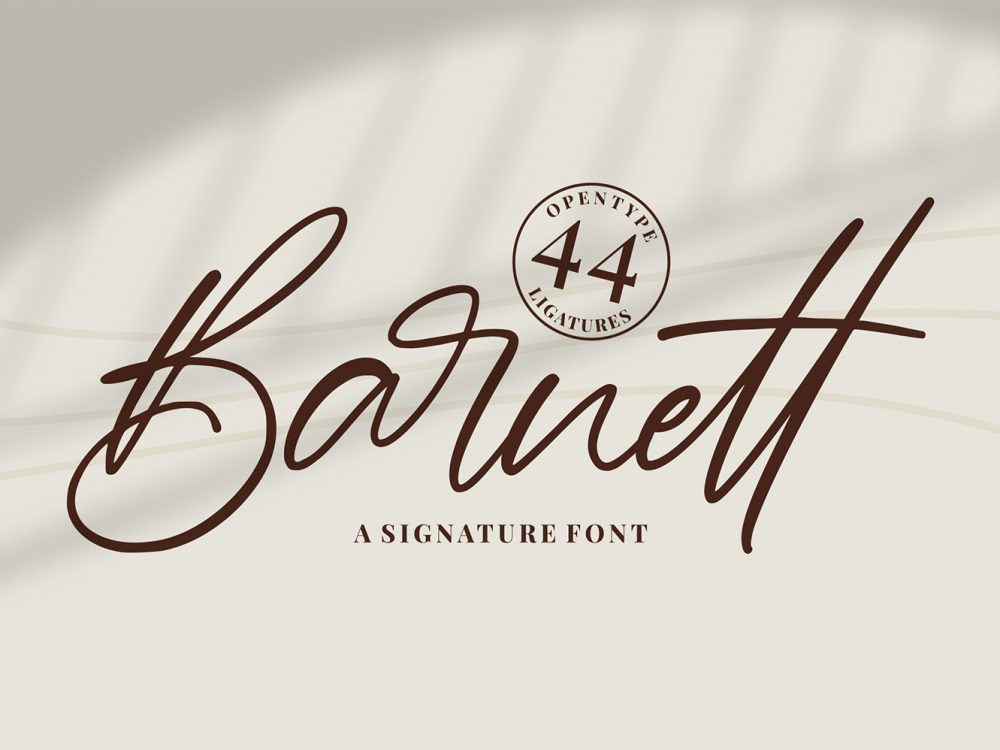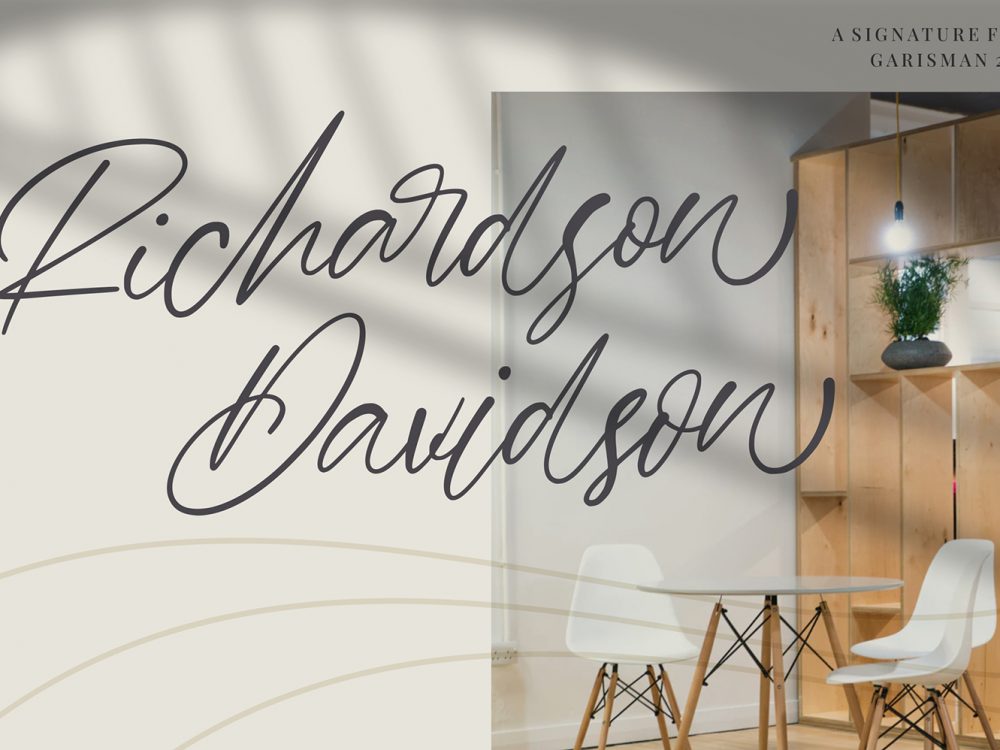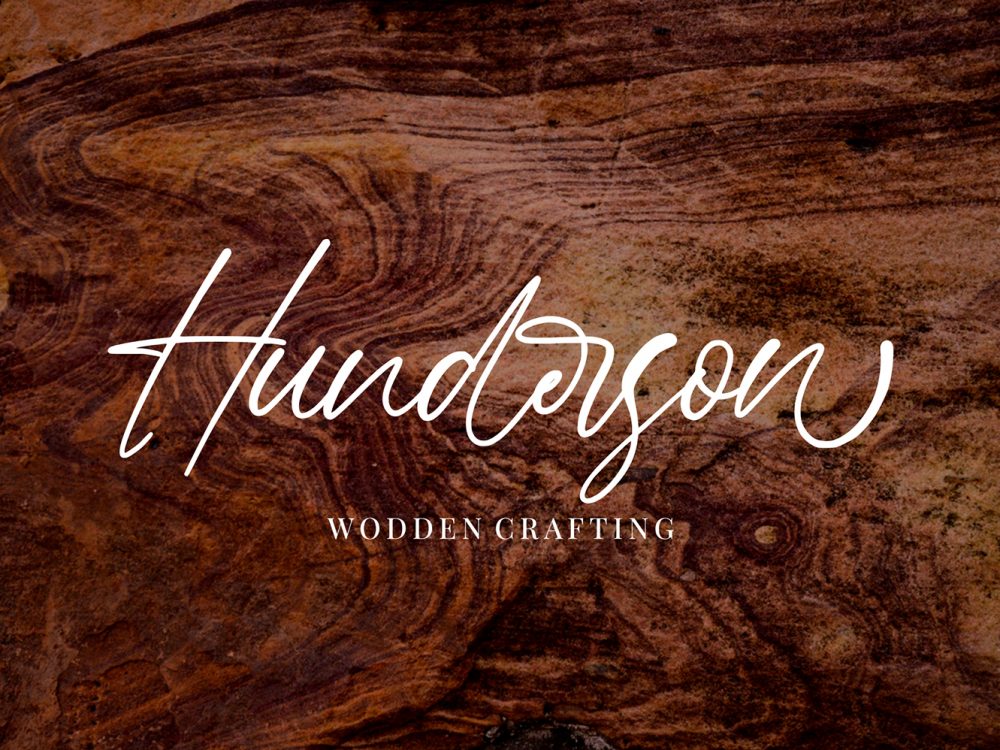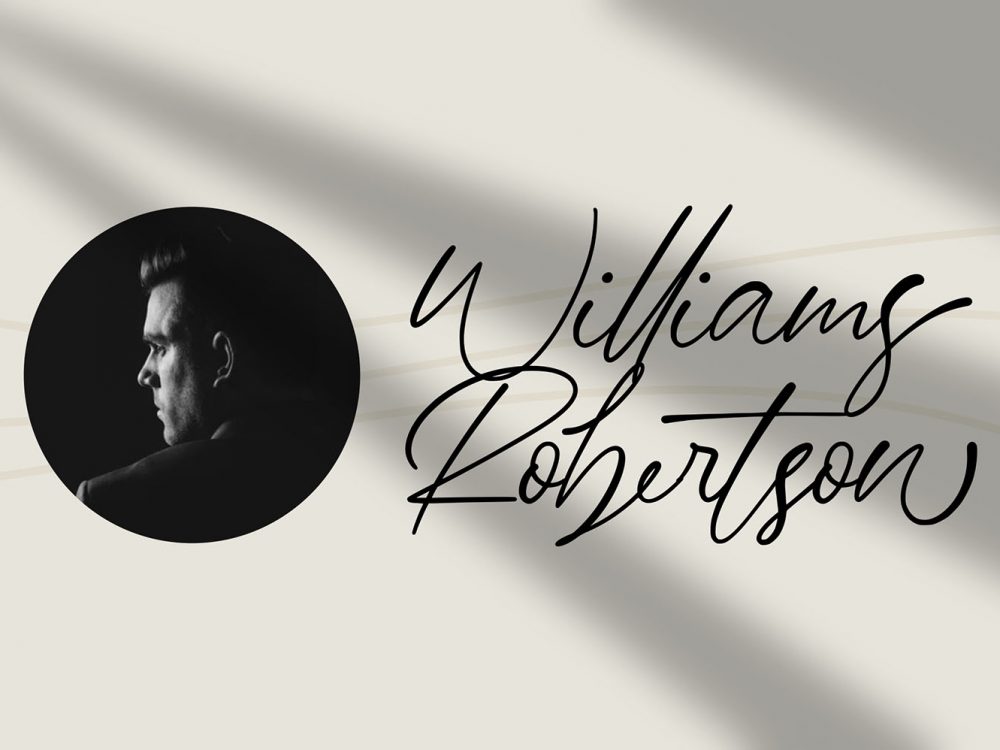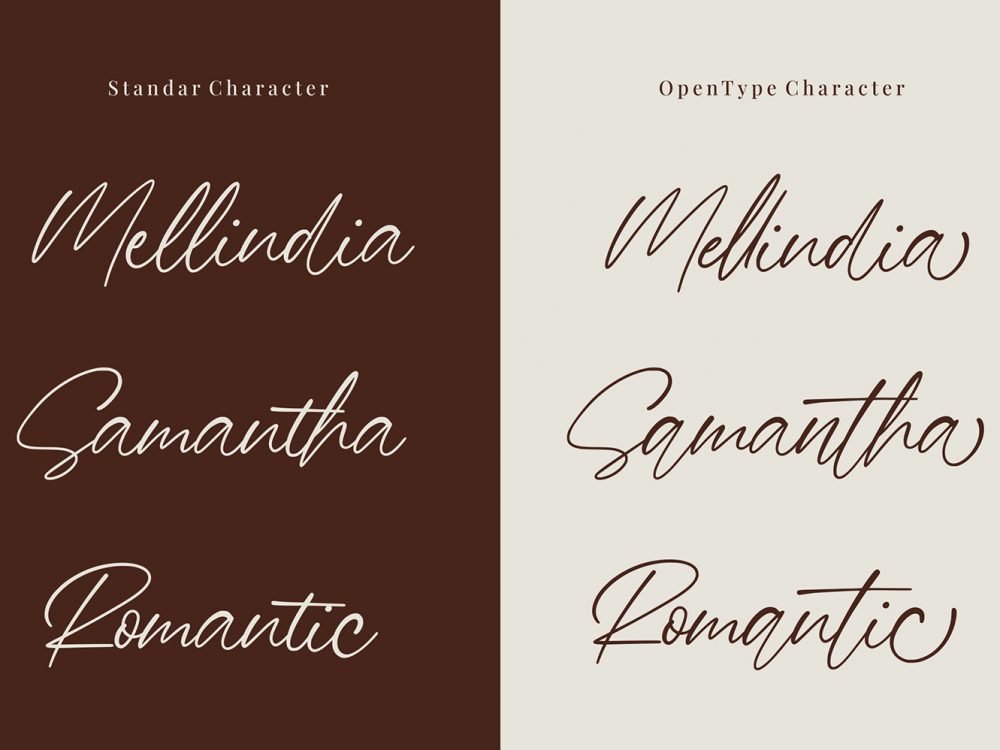
Barnett Free Font
Barnett Free Font is a stylish handwritten font that features an elegant calligraphic style. This font will help you create unique design projects and improve your professional level. Use this font to create memorable posters, wedding invitations, cards, branding, flyers, and more. If you like it don’t forget to check out the full version.